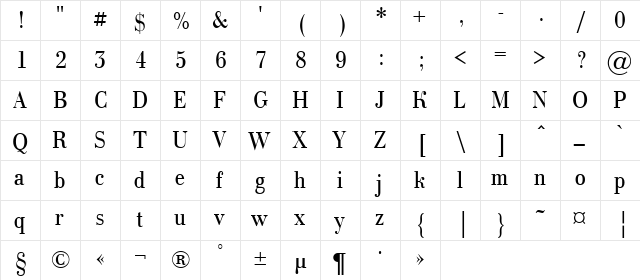
a_BodoniNovaNr Regular
Design Context for a_BodoniNovaNr Typeface
a_BodoniNovaNr is a composed and adaptable typeface that performs quietly and consistently across a wide range of design contexts.